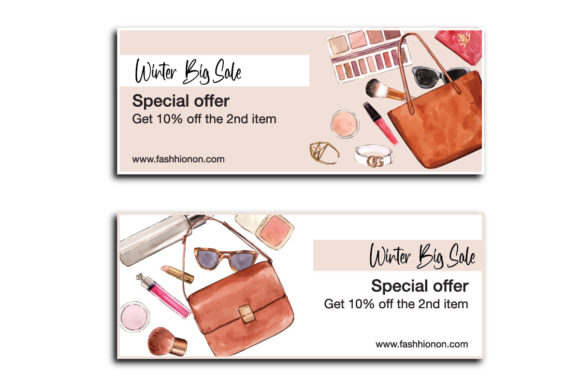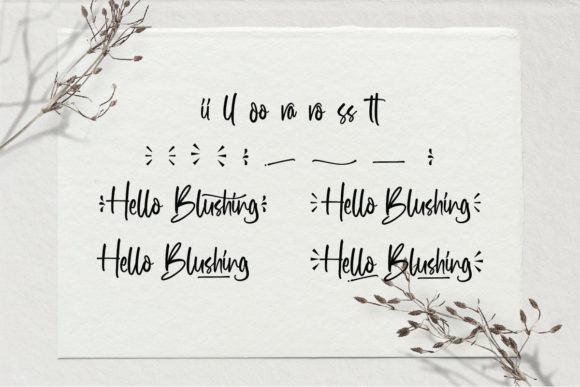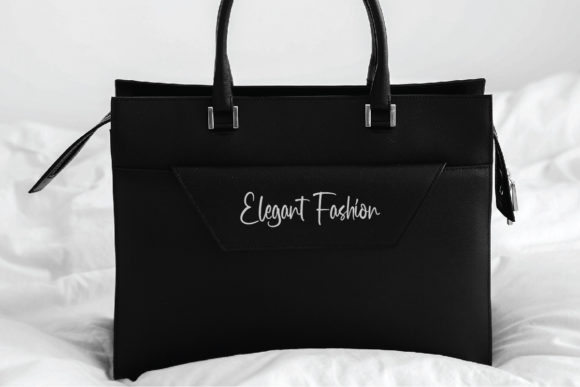
Introduction to Hello Blushing Font
As a designer, have you ever struggled to find the perfect font to elevate your creative project? Perhaps you’ve spent hours scouring the web for the perfect script, only to settle for something that just doesn’t quite feel right. That’s where the Hello Blushing Font comes in – a stunning handwritten font that’s sure to add a touch of elegance and style to your designs.
With its carefully crafted glyphs and attention to detail, the Hello Blushing Font is a game-changer for designers looking to take their projects to the next level. Whether you’re working on a wedding invitation, a branding campaign, or simply want to add a touch of whimsy to your blog, this font is the perfect design resource. And the best part? It’s available for free download, making it an accessible and high-quality option for designers of all levels.
So why settle for anything less when you can have the Hello Blushing Font on your team? With its versatility, sophistication, and transparent background, this font is sure to become a go-to for designers looking to create truly memorable and impactful designs.
Key Features of Hello Blushing Font
- High-quality, hand-drawn design perfect for creative projects requiring a unique touch.
- Unique, distressed style adds a touch of elegance and sophistication to any design project.
- Can be used in a variety of design contexts, including logos, branding, and typography-based designs, making it a versatile design resource.
Honest Review: Hello Blushing Font
As a designer, I’m always on the lookout for high-quality design resources to elevate my creative projects. Recently, I stumbled upon the Hello Blushing Font, and I must say it’s a great addition to any designer’s toolkit. ✨
This font is perfect for any project that requires a touch of femininity and elegance. It features a beautiful, cursive script that works well for wedding invitations, baby shower decorations, and other similar occasions. The font also comes with a transparent background, making it easy to layer and combine with other design elements.
Here are some of the features that I love about the Hello Blushing Font:
- High-quality design that’s perfect for a variety of creative projects
- The font is not suitable for large blocks of text, as it can be difficult to read in longer passages
- The font may not be suitable for projects that require a more modern or edgy look
Overall, I’m very impressed with the Hello Blushing Font. It’s a great resource for designers who want to add a touch of elegance and sophistication to their creative projects. With its high-quality design and transparent background, it’s a must-have for any design library. ⚠️
Hello Blushing Font
Hello Blushing Font is a high-quality design resource ideal for creative projects requiring a unique touch. This font features a beautiful, elegant script that can be used for various purposes, including invitations, social media graphics, and marketing materials.
Tips for Getting the Most Out of Hello Blushing Font
To get the most out of Hello Blushing Font, try experimenting with different font sizes, colors, and combinations. You can also use it in conjunction with other design elements, such as graphics and images, to create unique and eye-catching designs.
Hello Blushing Font is commonly used in creative projects, such as:
- Social media graphics and ads